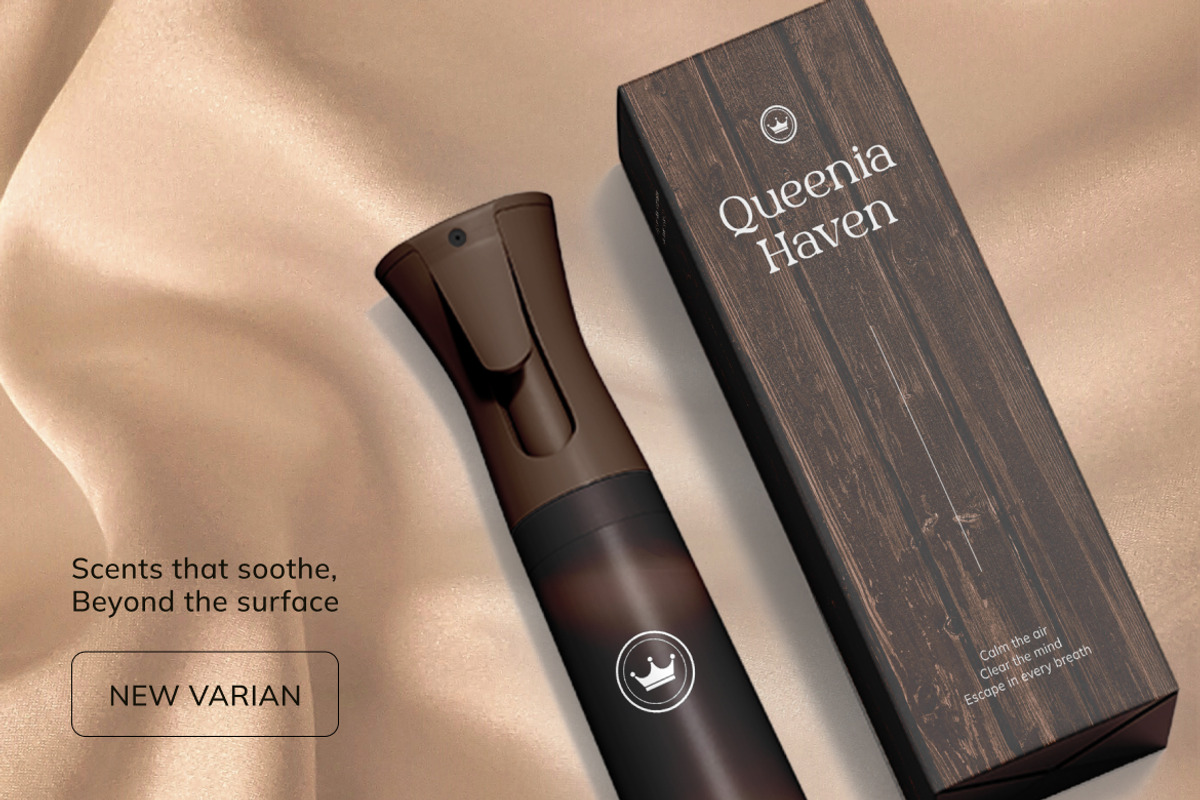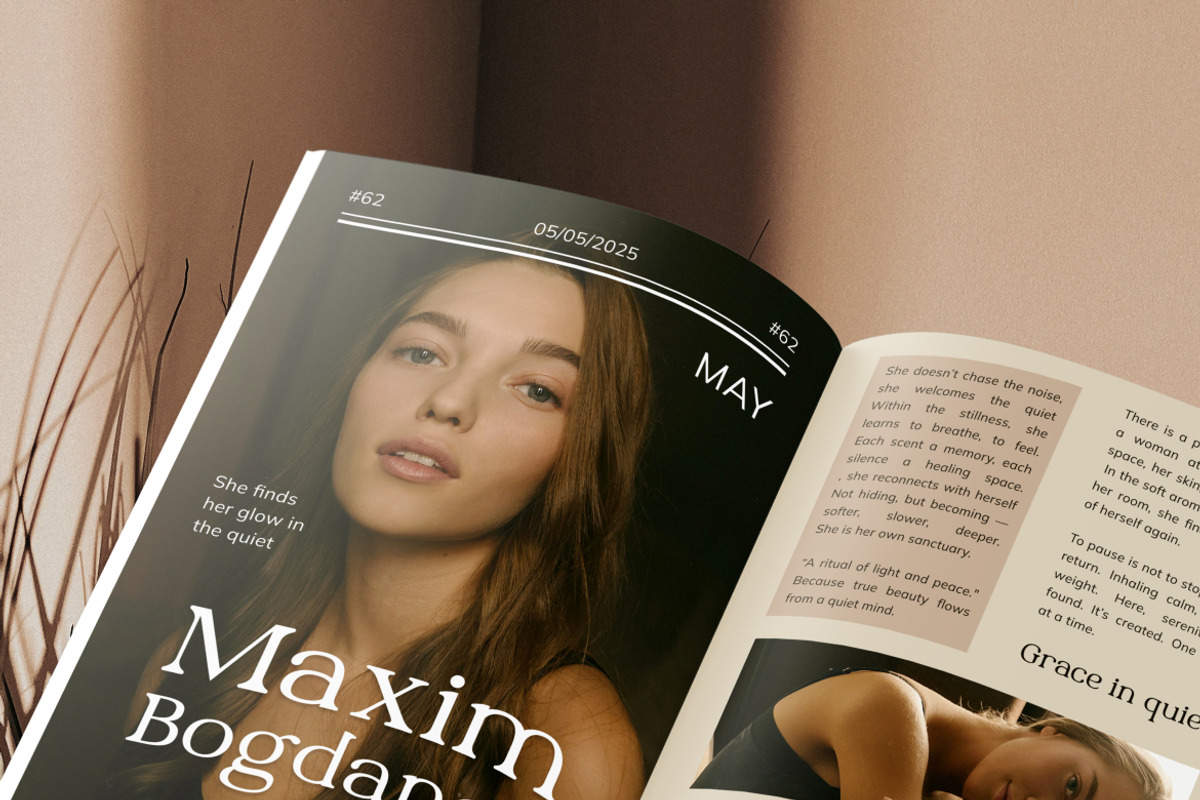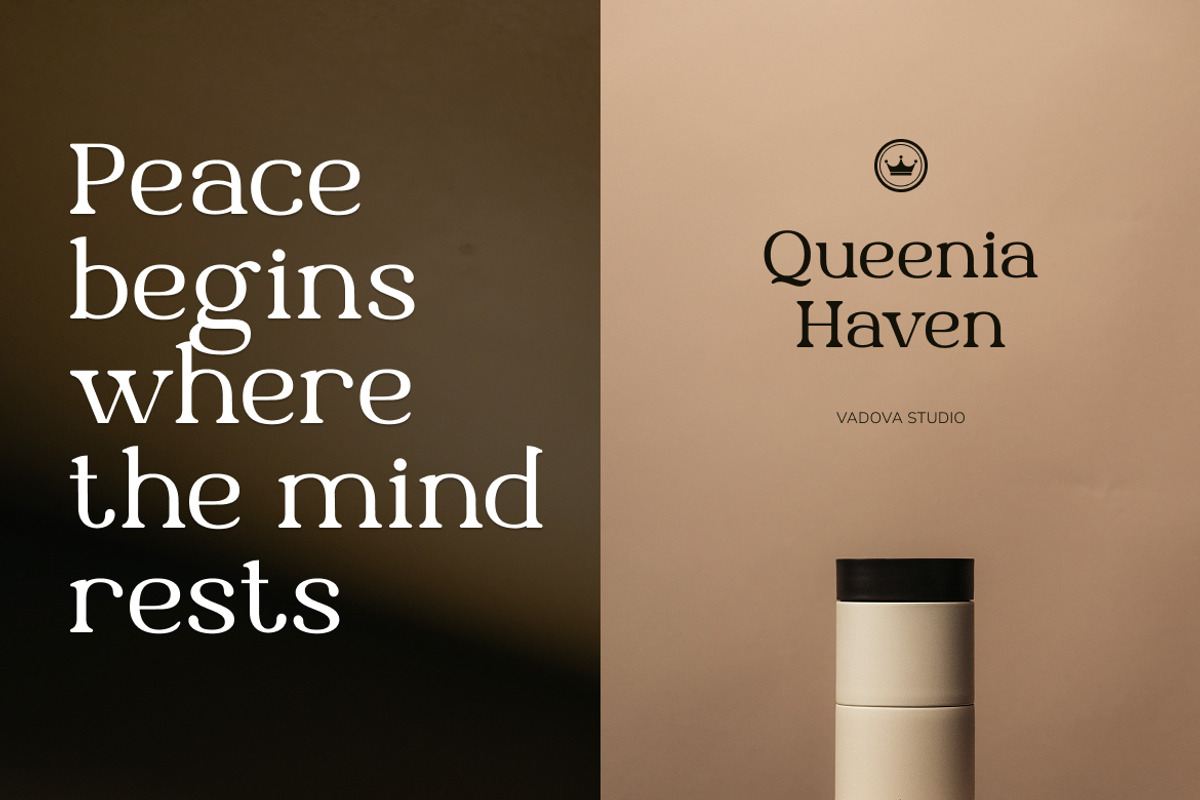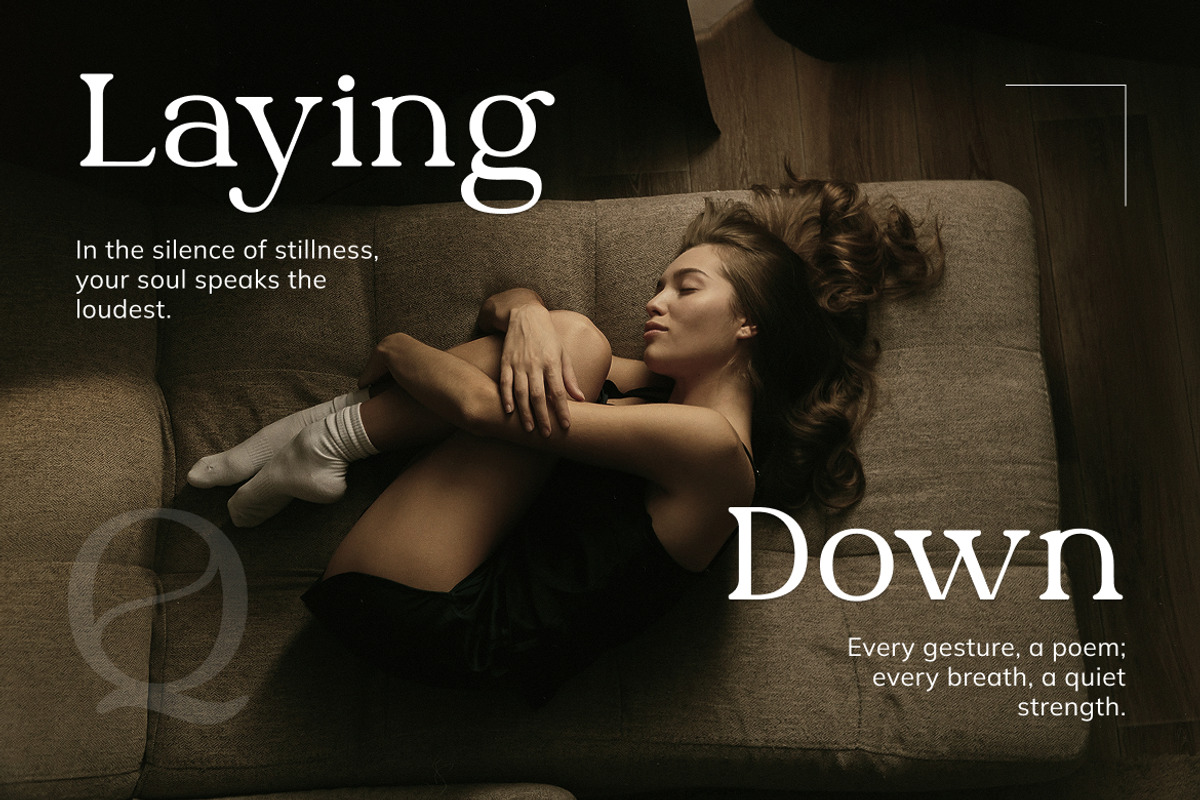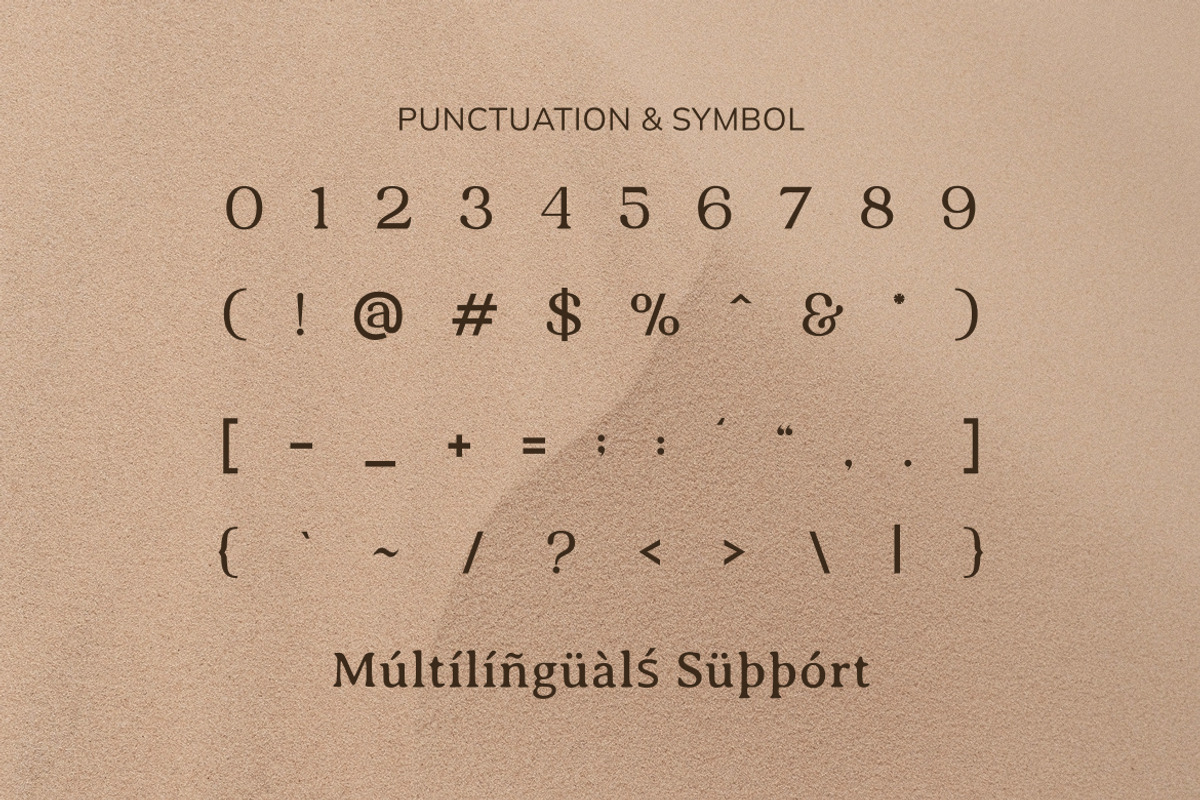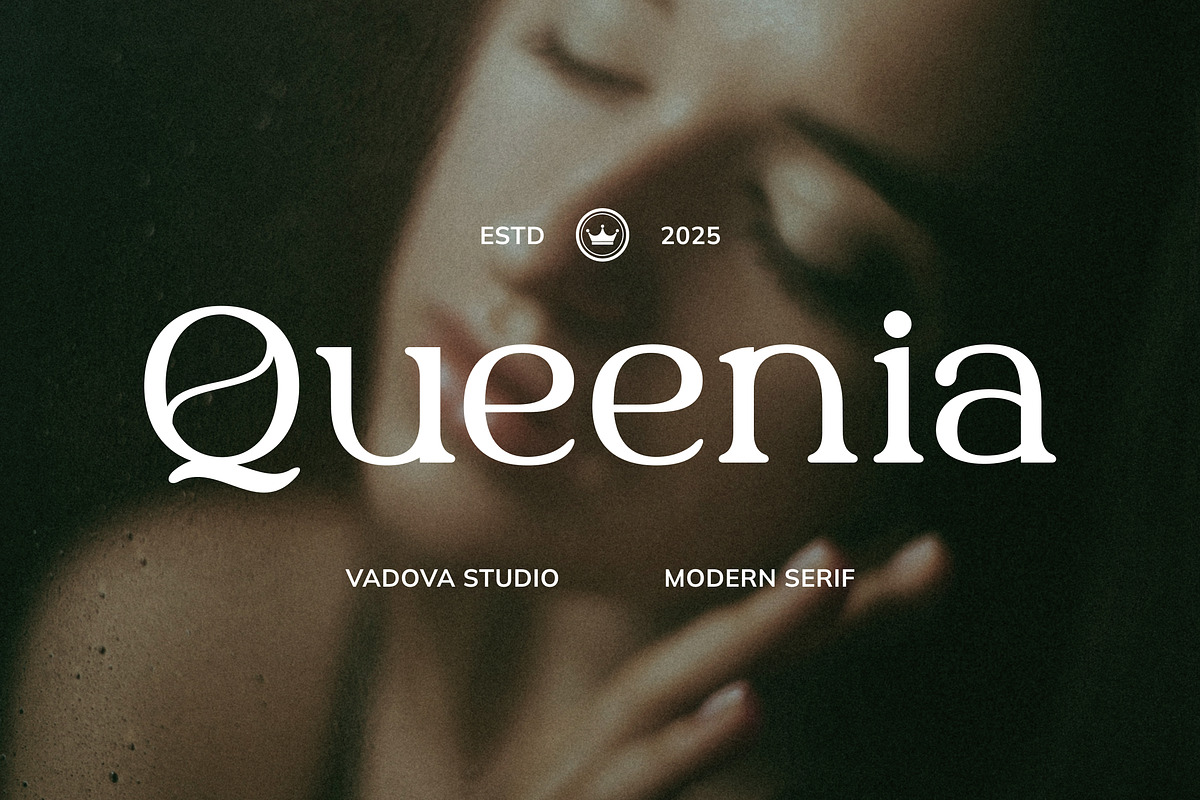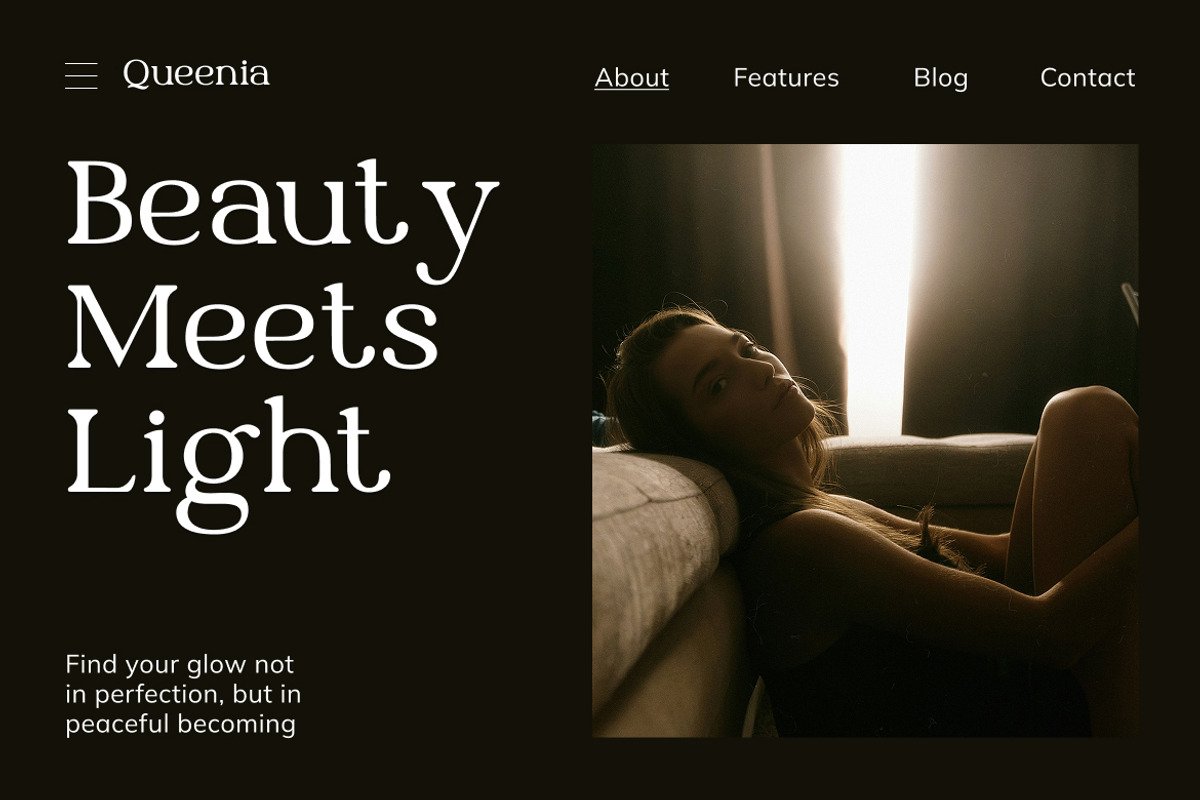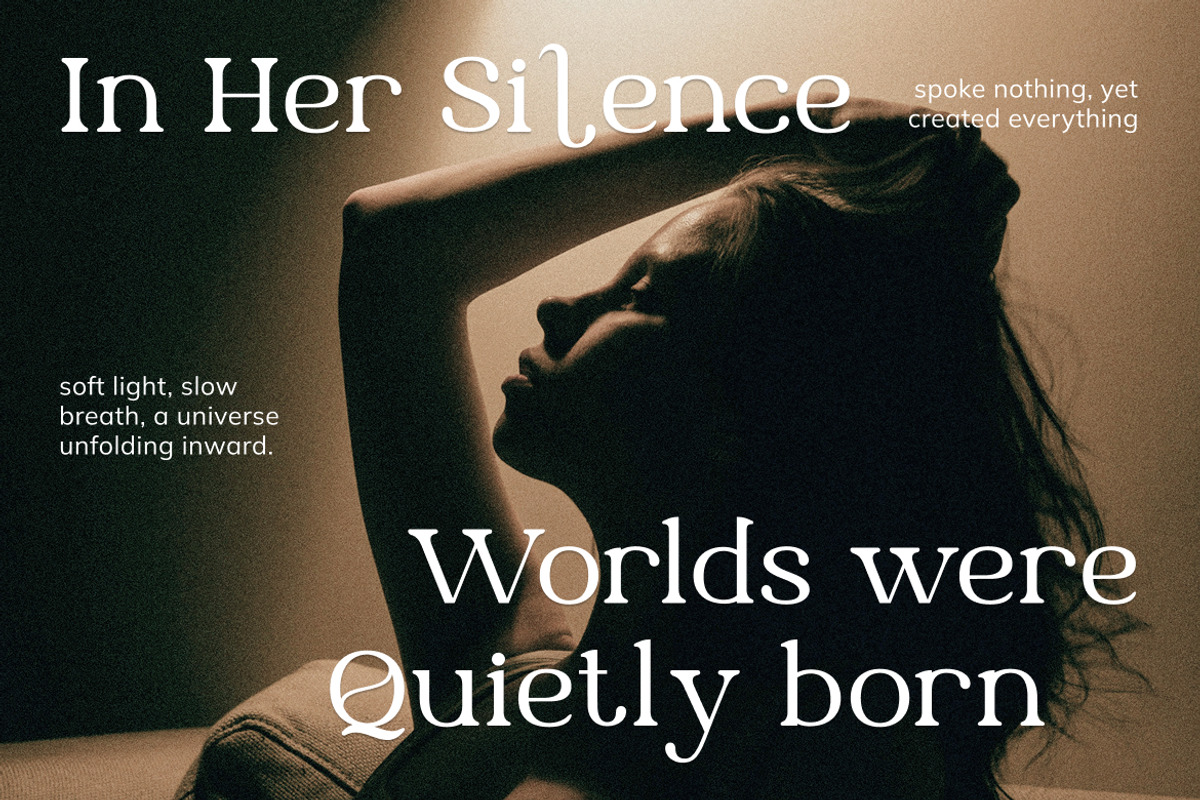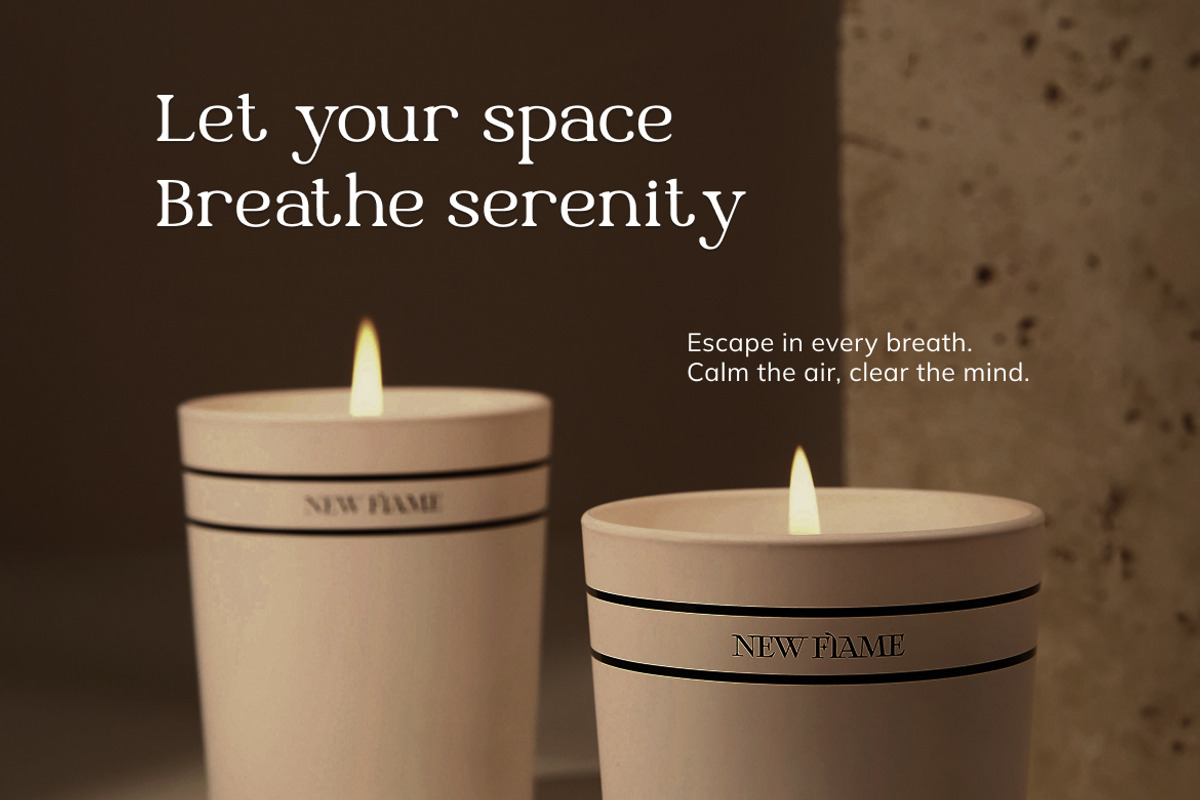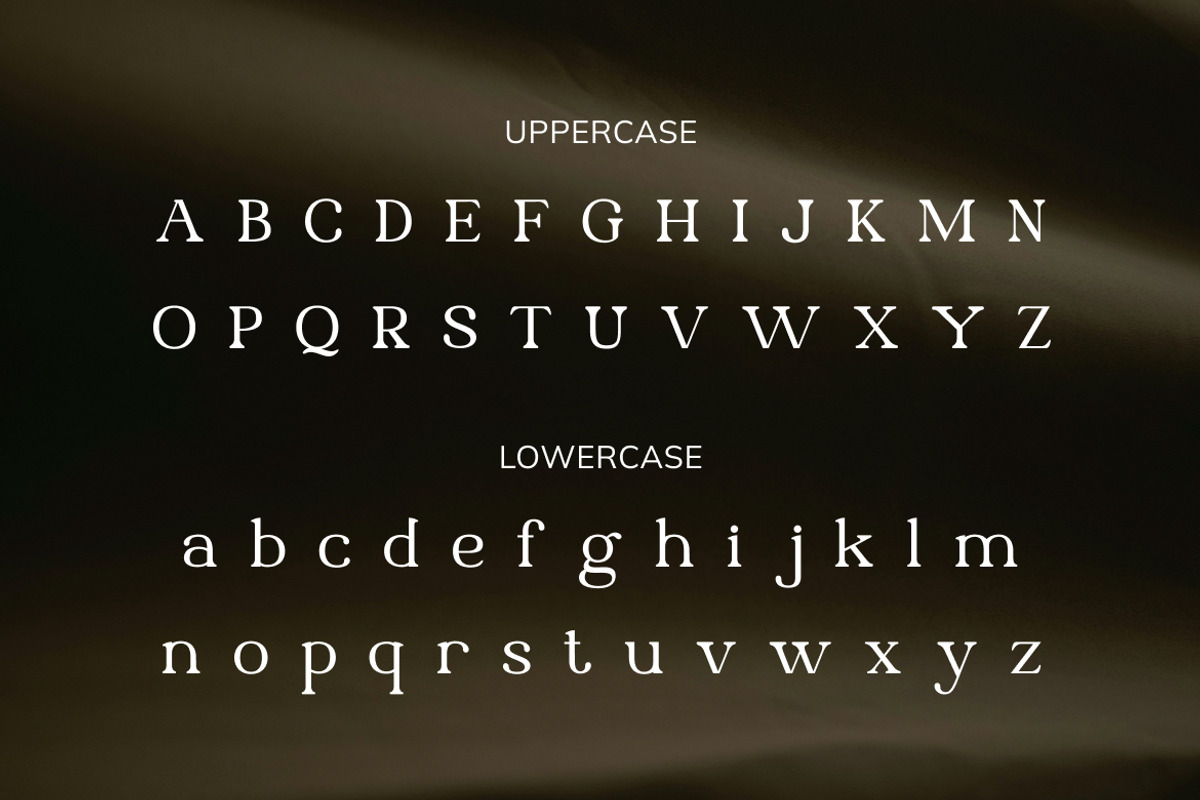
Queenia – Modern Elegant Serif Typef
Queenia is a modern serif font with a refined elegance and timeless beauty. Designed with graceful curves and strong letterforms, it’s perfect for luxury branding, editorial layouts, packaging, and sophisticated design projects.
The font strikes a perfect balance between classic serif tradition and contemporary style, making it versatile for both minimalist and decorative applications.
Highlights
Elegant and modern serif design
Perfect for editorial, logos, and branding
High contrast and graceful details
Timeless & luxurious personality
Multilingual support included
Best Uses
Luxury Branding – fashion labels, jewelry, perfumes
Editorial Design – magazines, books, newspapers
Packaging – cosmetics, skincare, premium products
Logotypes & Wordmarks – timeless serif aesthetics
Wedding Invitations – classy and sophisticated vibe
Social Media & Posters – elegant modern titles
Uppercase & Lowercase Letters
Ligatures & Stylistic Alternates
Bring a touch of royalty and sophistication to your next project with Queenia – Modern Elegant Serif Typeface.